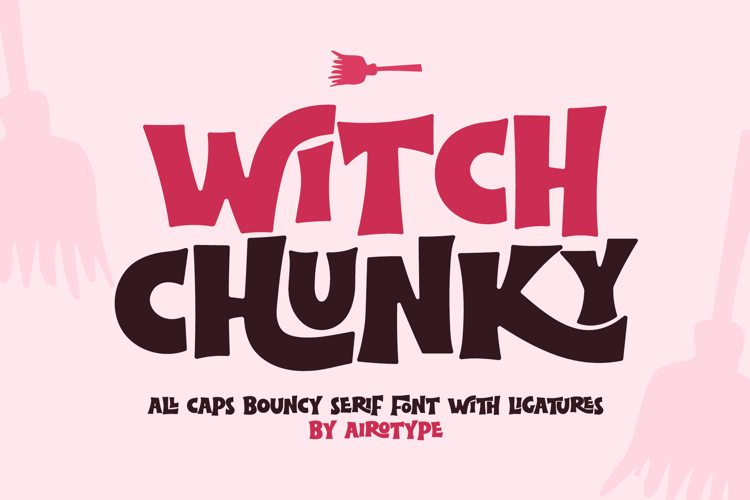
Witch Chunky is all caps serif font with thick character. This font is casual and bouncy, that will radiate freedom, festive, and joyful vibes.
The additional ligature in this font gives more options in designing, and emerge casualty and cuteness.
Witch Chunky is pretty suitable font for design that needs bouncy, fun, and spooky cute vibes, such as Halloween, t-shirt, crafting, stickers, logo, branding, tumbler, editorial, and many more.